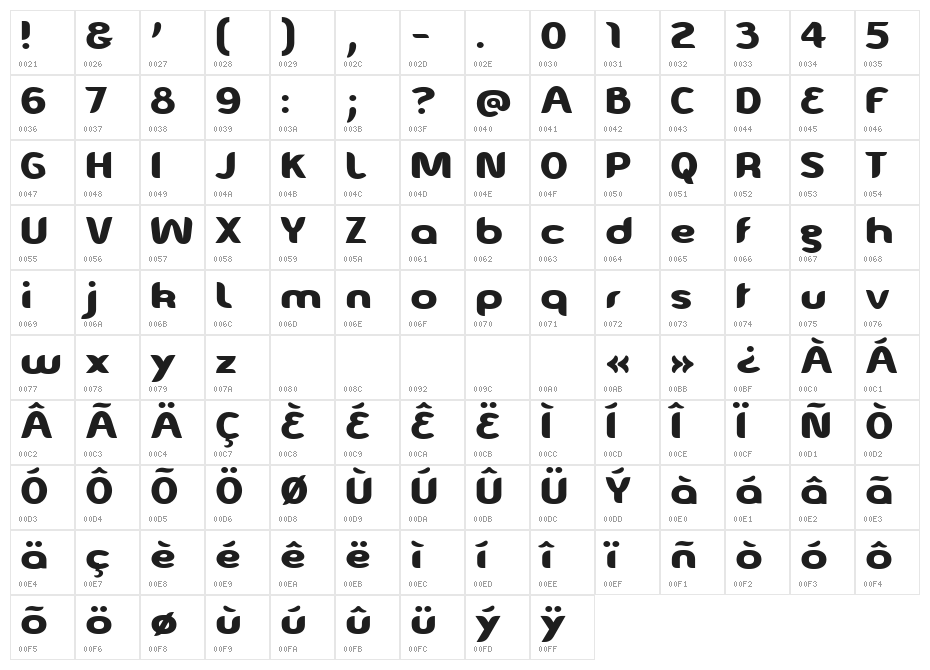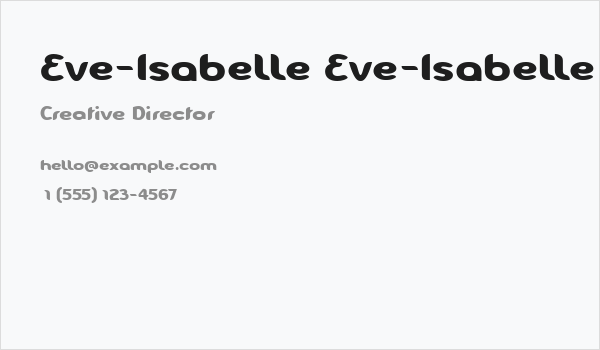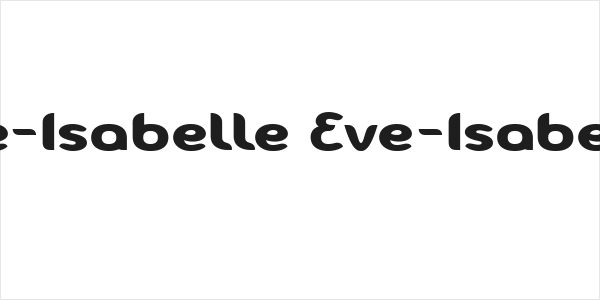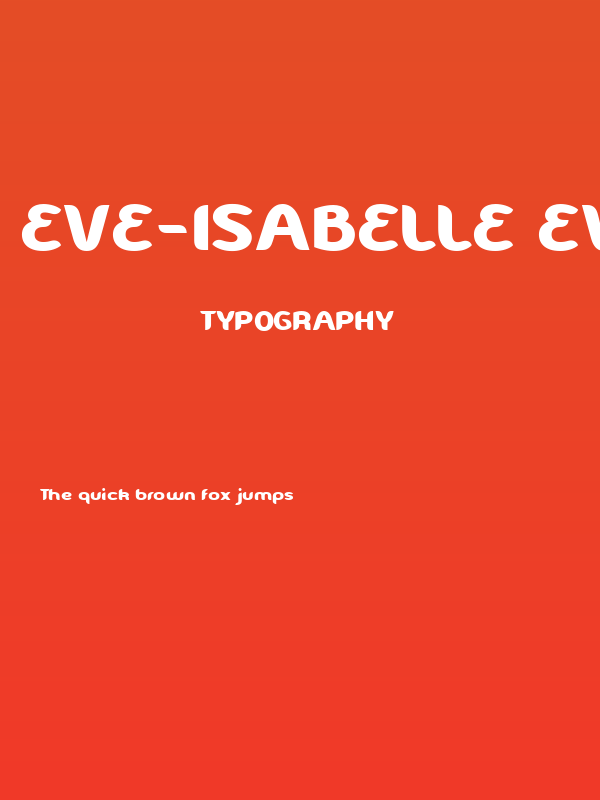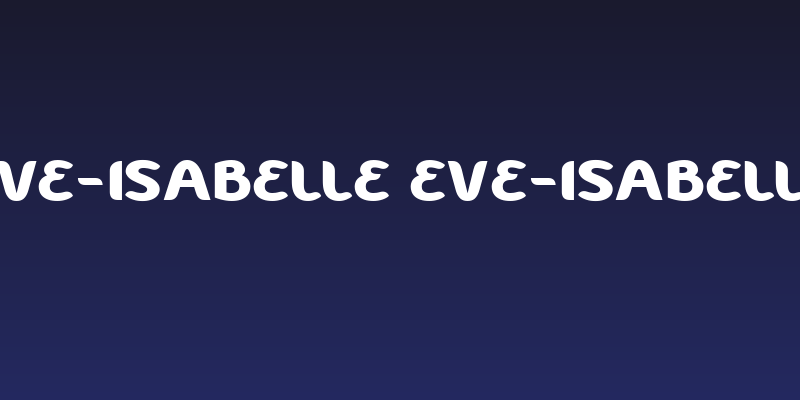
Eve-Isabelle Font
Eve-Isabelle Description
This font features a bold and rounded style, characterized by its smooth curves and playful appearance. The letters are evenly weighted, providing a consistent and harmonious look. The uppercase and lowercase letters maintain a uniform width, contributing to a balanced and cohesive design. The numerals are distinct and easy to read, with a similar rounded style that complements the alphabet. Special characters are included, maintaining the same rounded and bold aesthetic. This font is versatile, suitable for a variety of creative projects that require a friendly and approachable feel.
| Proposed Projects | Ideal for children's books, playful branding, posters, and social media graphics. |